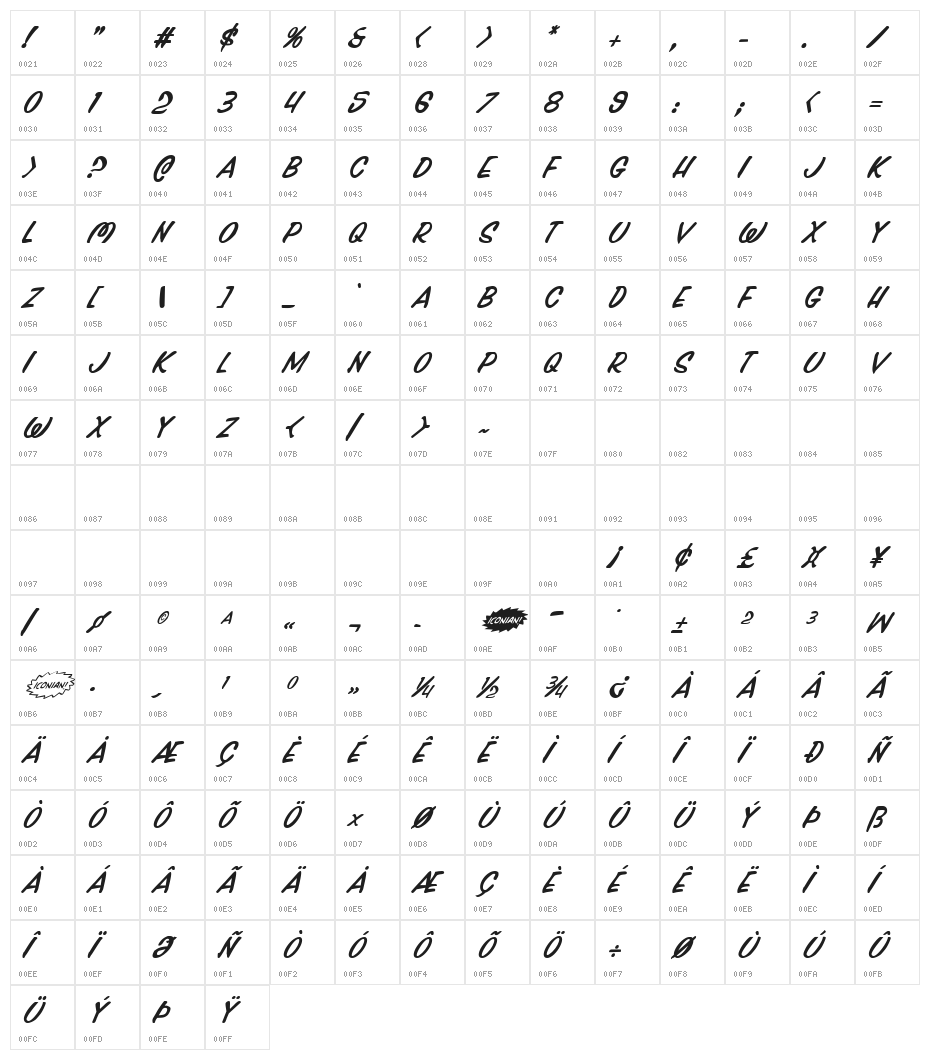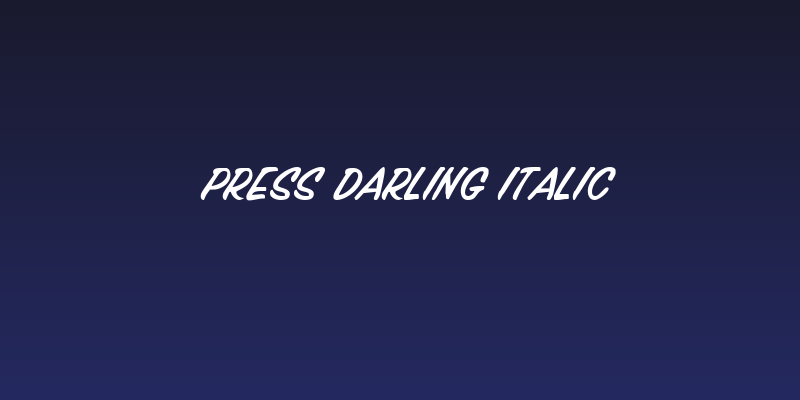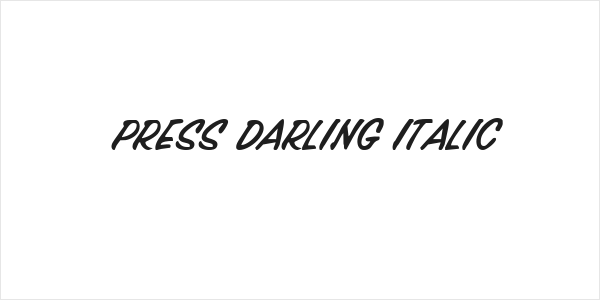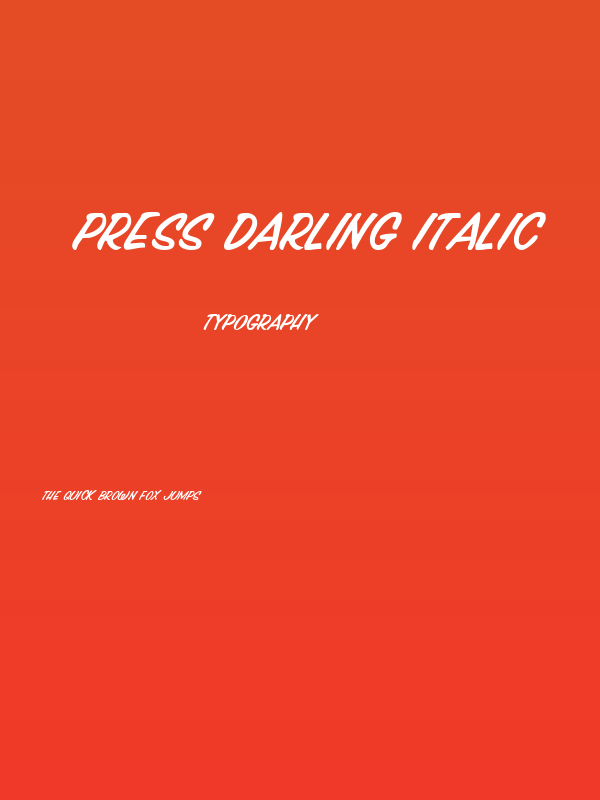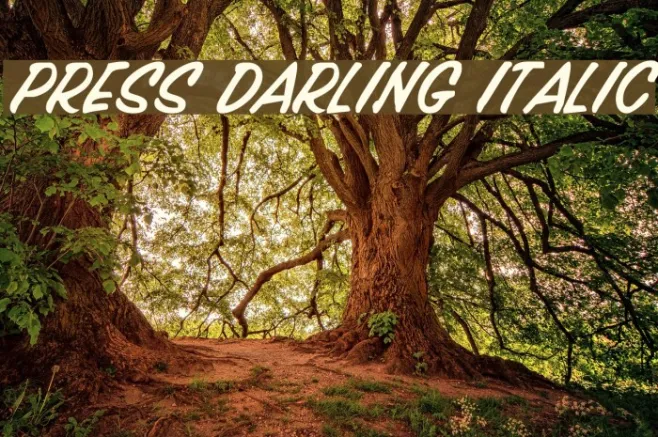
Press Darling Italic Font
Press Darling Italic Description
This font exhibits a bold, italicized style with a handwritten flair, characterized by smooth, flowing curves and a dynamic slant. The uppercase and lowercase letters maintain a consistent rhythm, creating a sense of movement and elegance. The numerals and special characters are crafted with the same fluidity, ensuring a cohesive look across all elements. The strokes are thick and uniform, providing a strong visual impact. This font is ideal for projects that require a personal touch or a sense of sophistication.
| Proposed Projects | Ideal for invitations, greeting cards, branding, and logo design where a personal and elegant touch is desired. |